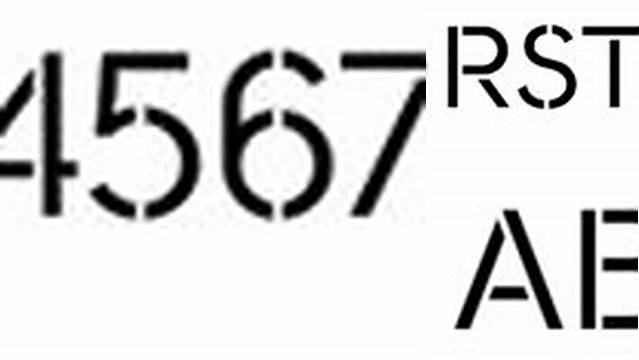
Hey everyone! If you're looking for a cool, free font that packs a visual punch, you've come to the right place. Today, we're diving headfirst into the world of the Galeb Stencil Regular font. This font is a real gem, and it's perfect for adding a touch of edgy style to your projects. It's a stencil font, meaning the letters have those cool cut-out sections, making it stand out instantly. And the best part? You can get your hands on the Galeb Stencil Regular font free! So, stick around as we explore where to download it, what makes it special, and how you can use it to spice up your designs. We'll cover everything from its unique design to the legal stuff, like licenses and usage. Whether you're a seasoned designer or just starting, this guide has something for everyone. Let's get started and see how the Galeb Stencil Regular font can take your projects to the next level! We'll also talk about the font's history, similar fonts, and the different ways you can use it. This font is not just a typeface; it's a statement. With its distinctive look, it can transform any design into something memorable. We'll discuss how to pair it with other fonts, best practices for use, and some common design scenarios where it shines. Plus, we'll keep it simple and easy to understand, so even if you're new to fonts, you won't get lost. Let's unlock the potential of the Galeb Stencil Regular font together and see how it can elevate your creative work.
What is the Galeb Stencil Regular Font?
The Galeb Stencil Regular font is a distinctive typeface characterized by its stencil design. Stencil fonts are known for their unique appearance, where certain parts of the letters are removed, creating small gaps or bridges. This design choice makes them easily recognizable and gives them a bold, industrial aesthetic. The Galeb Stencil Regular font specifically builds on this style, offering a clean, modern take that's perfect for various applications. The font's design is generally geometric, with clear lines and strong shapes, which makes it highly readable even at smaller sizes. It's not the kind of font that fades into the background. Instead, it jumps out at you, demanding attention. The cut-out sections of each letter add a unique visual texture, giving it a distinct character. This font is not just about aesthetics; it's about making a statement. It's the kind of font that grabs your audience's attention and leaves a lasting impression. Whether you're working on a logo, poster, or website, the Galeb Stencil Regular font can add an extra layer of personality and style to your project. Its versatility means it can be used in a wide range of creative endeavors, from digital designs to print materials, and it will always make a statement. This font embodies a modern aesthetic that brings a fresh perspective to any project. The Galeb Stencil Regular font gives your designs a trendy and artistic flair, making it a great choice for anyone looking to stand out from the crowd. This font's visual impact is undeniable, making it a standout choice for your design needs.
The Galeb Stencil Regular font has several key features that make it stand out. First and foremost, its stencil design is the most striking characteristic. The carefully placed cut-outs in each letter create a unique visual appeal that is both modern and eye-catching. The design also lends itself well to being legible at various sizes, which is crucial for both print and digital applications. The font has a strong, structured appearance due to the clear geometric shapes and lines. This makes it look clean and easy to read, even when used in headings or short bursts of text. Besides its visual appeal, this font is very versatile. Its bold design works well for both headlines and shorter text blocks. Another crucial feature is its readability. Despite being a stencil font, which can sometimes be hard to read, the Galeb Stencil Regular font strikes a perfect balance between style and legibility. The letterforms are designed in a way that ensures the font is readable, even at small sizes. This is super important when you're designing things like logos or small text elements. The font's modern aesthetic allows it to fit into many different design projects, from branding to posters and website designs. The font also often comes with a wide range of characters. These are super helpful and make the font very adaptable to many design projects. This character set allows you to create more complex designs, ensuring you have all the necessary glyphs for your project.
Design Applications and Best Practices
The Galeb Stencil Regular font is super versatile and can be used in all sorts of creative projects. It's awesome for grabbing attention. It's perfect for headlines, titles, and any text that needs to stand out. For instance, you could use it to design a cool logo, or add a modern touch to your website's headers. This font also works great in print designs, like posters, flyers, and brochures. The stencil design adds a unique and edgy look that's hard to miss. When it comes to using the Galeb Stencil Regular font, there are a few best practices to keep in mind. First, think about how you will use the font. Because of its bold style, it's generally best for shorter text blocks rather than large paragraphs. Make sure the font complements the message and tone of your project. Next, consider readability. While the stencil design is cool, it can sometimes be hard to read, especially in smaller sizes. Try to balance the size of the font with the amount of text. Also, consider pairing the Galeb Stencil Regular font with another font. This can help you create a visual hierarchy and add more depth to your design. A good practice is to pair the font with a simpler, more readable font for body text. Another best practice is to make sure you pay attention to the spacing between the letters. This is called kerning. In some cases, you may need to adjust the kerning to ensure the font is readable. Finally, test your designs on different devices and platforms. This can help ensure the font looks good in all situations. By keeping these things in mind, you can make sure your designs are as impactful as possible.
Tips for Effective Usage
Here are some tips to get the most out of the Galeb Stencil Regular font: First, choose the right context. The font really shines in headlines, titles, and short text blocks. Avoid using it for large paragraphs or body text, as it can reduce readability. Second, think about how you'll pair the font. It works well with simple, sans-serif fonts for body text, which helps balance the bold style. Third, be mindful of the size and scale. You'll want to experiment to find the right size for the font, ensuring it's legible. Fourth, play with color and contrast. Using colors and contrast can help make the font stand out. Fifth, don't overdo it. The font is super cool, but it can also be overwhelming if overused. Use it sparingly to maximize its impact. Finally, test your designs. Preview your work on different devices and platforms to ensure the font looks great in all situations. Consider the background and overall design when using the font. When combining the Galeb Stencil Regular font with other design elements, think about creating a cohesive look. The font's boldness pairs nicely with other geometric elements. Consider using the font with a color palette that complements its style. When working with a specific brand or project, be sure the font matches the intended tone and style. By focusing on these things, you can make the most of the Galeb Stencil Regular font and boost the effectiveness of your designs.
Similar Fonts and Alternatives
If you're a fan of the Galeb Stencil Regular font, there's a good chance you'll enjoy other fonts that share a similar vibe. Exploring these alternatives can help you create a variety of designs. Some similar fonts are also stencil fonts, each with a unique design. When looking for an alternative, you might consider fonts that also have a strong, geometric look. These fonts can be great for headlines and branding, just like the Galeb Stencil Regular font. Some of these fonts are also available for free, so you can experiment with them in your projects. You may also want to consider fonts with a more modern or industrial look. These fonts will provide a similar edgy aesthetic. There are also many other stencil fonts available. These fonts often share some of the same characteristics. These fonts can be easily found online by searching for stencil fonts. Another option is to look at fonts with a similar character count. Fonts with similar character counts will have a similar style. To find fonts like Galeb Stencil Regular, you can search for words like "stencil fonts," "geometric fonts," or "industrial fonts." Also, many websites offer font comparison tools, which help you find similar fonts. When trying out alternative fonts, be sure to look at the details. Check the license and usage rights to ensure the font fits your design needs. By exploring similar fonts, you can widen your design options and discover new styles.
Conclusion: Embrace the Galeb Stencil Regular Font
So, there you have it, folks! We've taken a deep dive into the Galeb Stencil Regular font, uncovering everything from its unique design features to where you can download it for free and how to use it in your creative projects. This font is a great choice for anyone looking to add a little bit of edge and personality to their designs. Whether you are working on a website, poster, or logo, this font can make your project stand out. Remember to always check the licensing terms and ensure that your usage aligns with the agreement. Always prioritize the terms and conditions when you're using the font. Also, consider the design and make sure it complements your project's style. The Galeb Stencil Regular font is more than just a typeface; it's a statement. So, go out there, download the font, and start creating! We hope this guide has been helpful, and you're now ready to incorporate the Galeb Stencil Regular font into your projects. Happy designing!